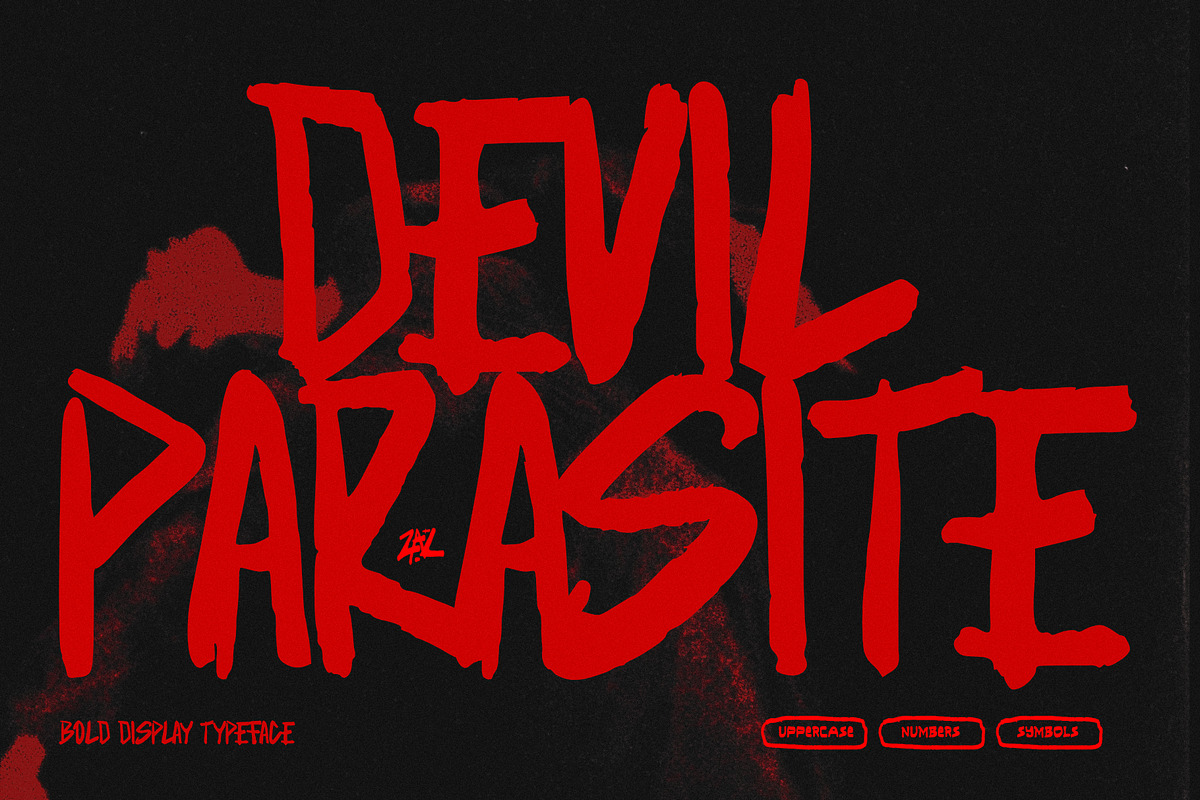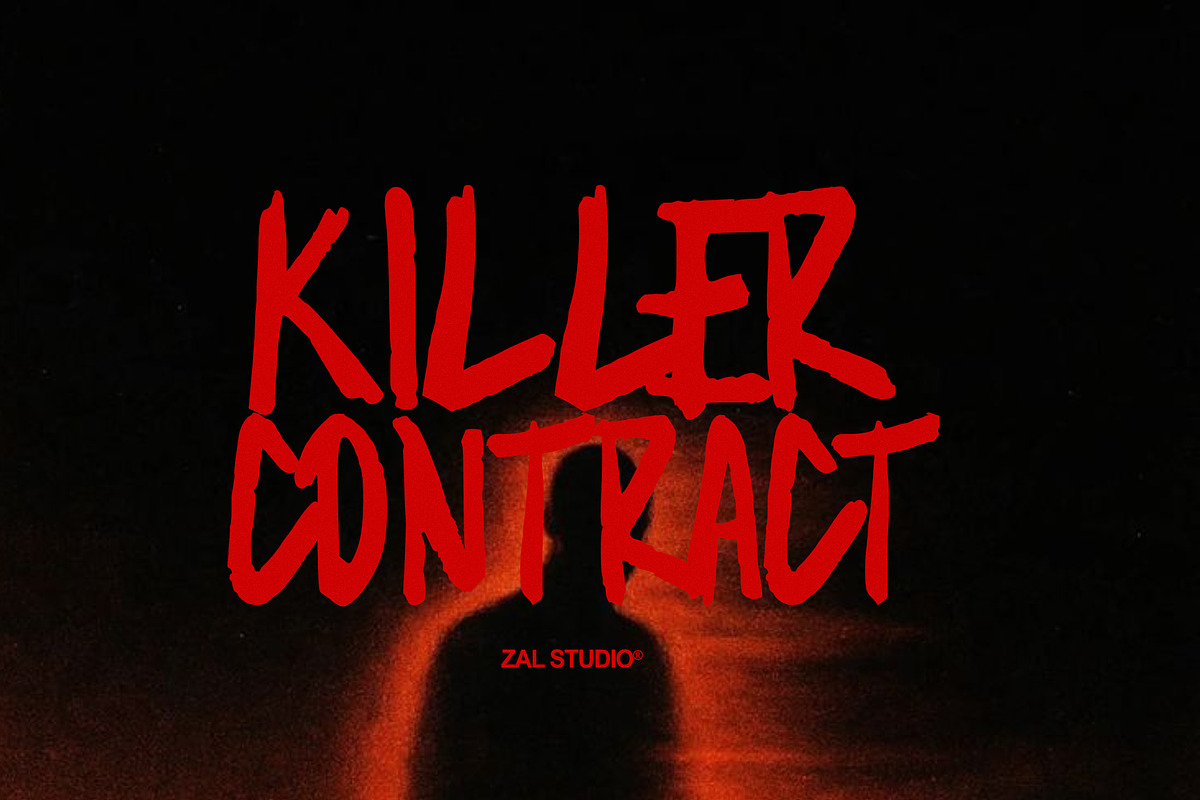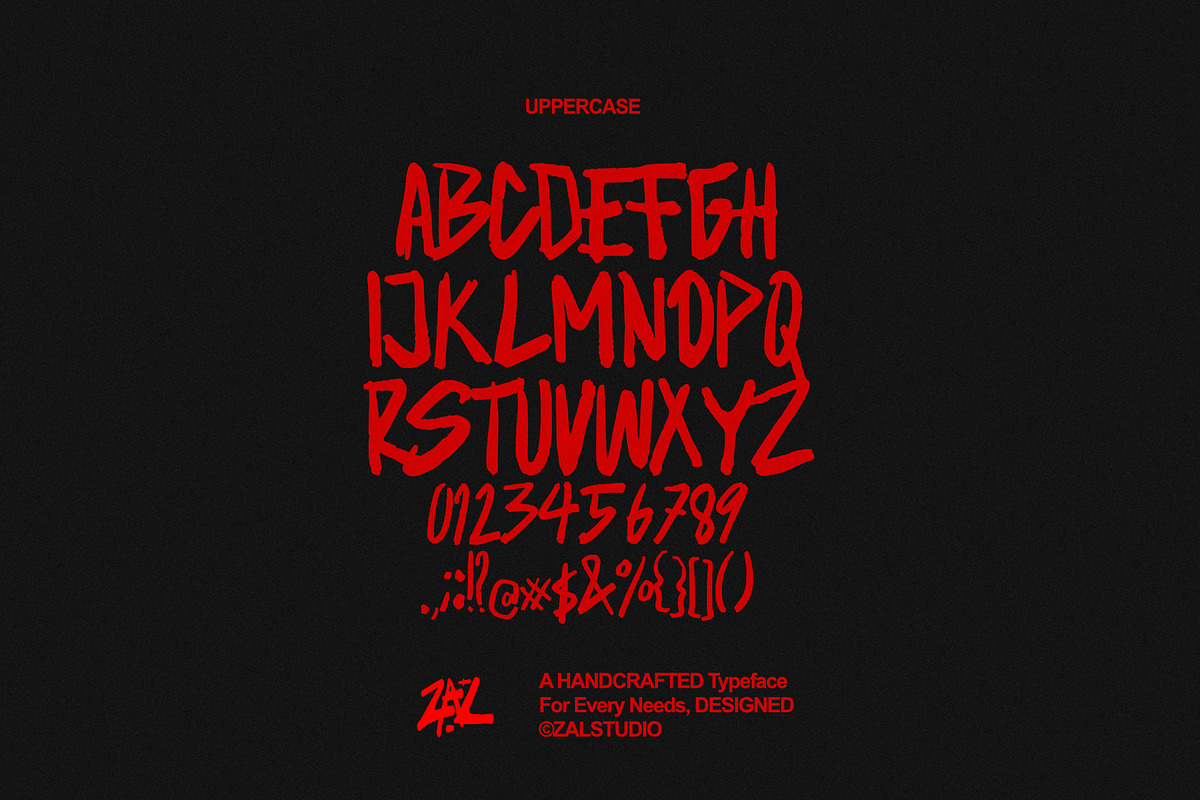
Devil Parasite - Horror Display Font
Devil Parasite is a dark and disturbing horror display typeface designed to bring an unsettling, sinister, and monstrous atmosphere to your designs. Its aggressive letterforms and eerie character make it perfect for projects that need a strong horror aesthetic with a bold visual impact.
Horror movie posters
Halloween artwork and merchandise
Haunted house branding
Metal and extreme music artwork
Dark fantasy projects
Gaming titles and graphics
Album and book covers
YouTube thumbnails
Logos and promotional graphics
Devil Parasite works especially well for attention-grabbing headlines, titles, logos, posters, and promotional graphics where you want to create a terrifying and mysterious mood.